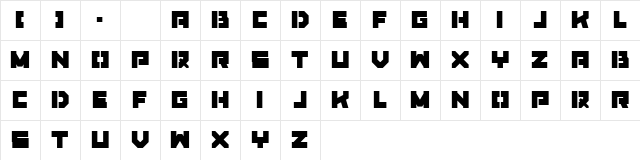
Charmy Regular
Design Context for Charmy Typeface
Charmy has the no-nonsense character of military stencilling and tactical signage, projecting authority and directness.
Designed for tactical branding, military-inspired apparel, action game UI, and utility-focused signage.
Pro Tip: Use Charmy at medium-to-large sizes where its utilitarian structure can be appreciated — the character detail gets lost at small sizes.